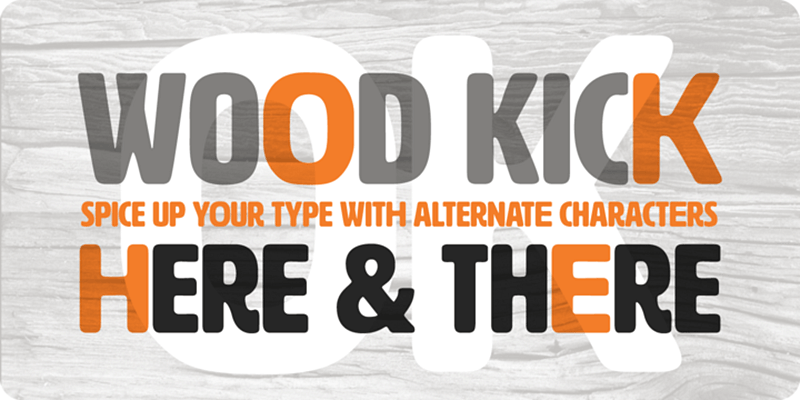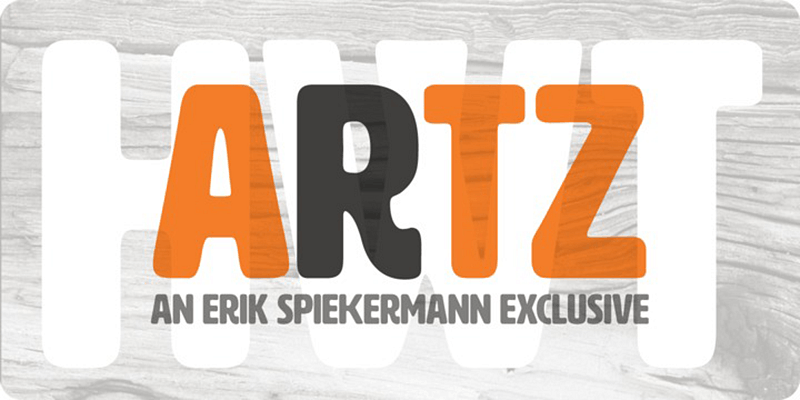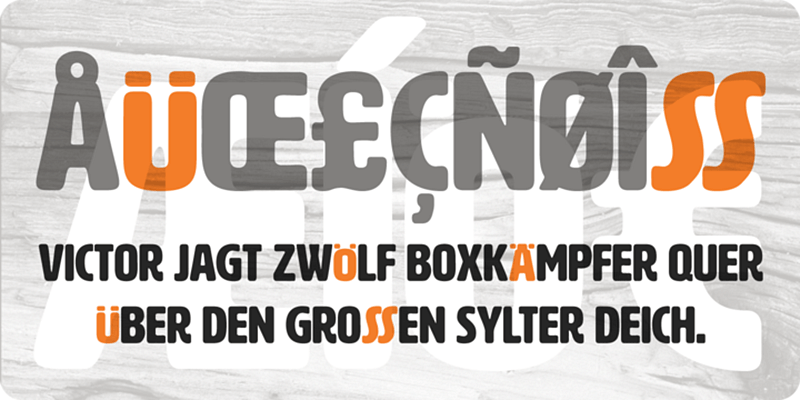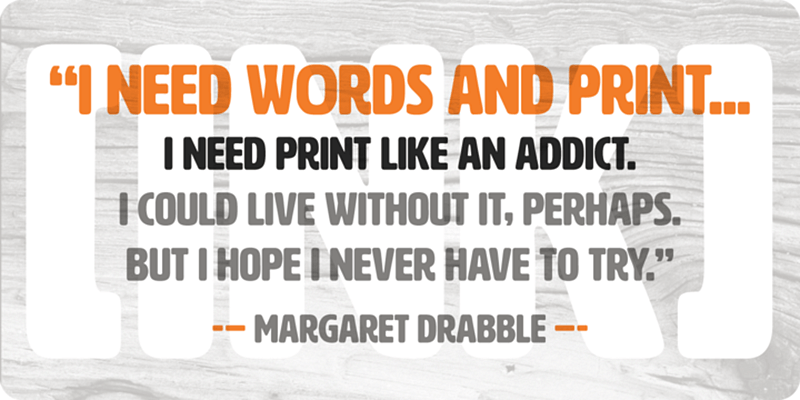
HWT Artz evokes bold early 20th century European poster lettering. It is a contemporary design by Erik Spiekermann for his own print studio P98a in Berlin, made to be cut into large size wood type.
Hamilton Wood Type Collection, established in 2012, is a joint venture between P22 Type Foundry and the Hamilton Wood Type & Printing Museum. The founding goal was to safeguard a typographic era and make classic wood type designs available as digital fonts for modern audiences. This historical collection of serif revivals, sans reinterpretations, decorative embellishments, script reclamations, and original chromatic designs is stunningly relevant and usable for any imaginative design practice.